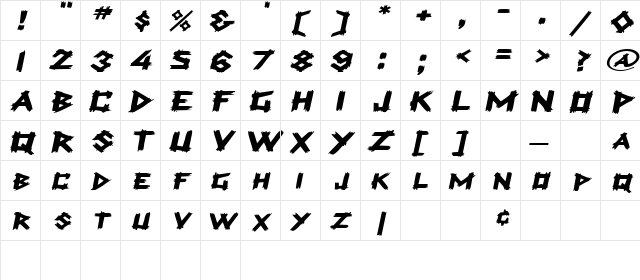
LogCabinExtended Oblique Font Preview
LogCabinExtended Oblique
Design Context for LogCabinExtended Typeface
LogCabinExtended is a composed and adaptable typeface that performs quietly and consistently across a wide range of design contexts. The dynamic lean of this cut emphasises speed and emphasis in any layout.
Pro Tip: Try LogCabinExtended for annotation and caption copy alongside an upright companion — the contrast in angle creates a dynamic but ordered typographic system.